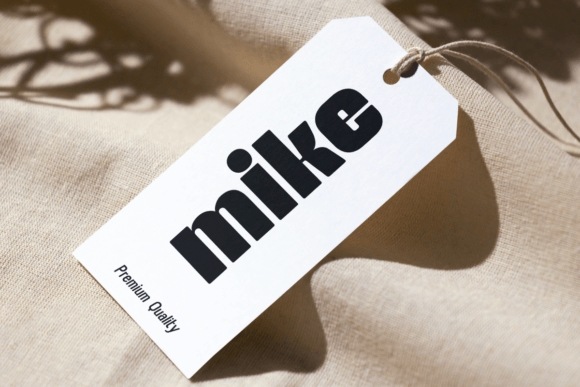
Benz Gacore Font: The Embodiment of Modern Elegance
In the realm of typography, few fonts manage to strike a balance between modern flair and timeless sophistication. Benz Gacore, a sans-serif display font, is one such typographic marvel that has been making waves in the design community. With its robust elegance and striking contemporary style, Benz Gacore is the perfect companion for design projects that seek to make an unforgettable impact.
The Design Philosophy of Benz Gacore
Benz Gacore’s design philosophy revolves around the concept of daring uniqueness. Its proportional letterforms are carefully crafted to breathe a sense of contemporary professionalism into every word, making it easily digestible and aesthetically pleasing for readers. The font’s clean, geometric shapes and surgical precision deliver a sense of simplicity that is both refreshing and impactful.
At the heart of Benz Gacore’s design is a commitment to modernity. Its sans-serif structure ensures that the font remains uncluttered and crisp, making it perfect for titles, logos, and headlines. The font’s geometric shapes are meticulously crafted to create a sense of visual harmony, making it a versatile choice for a wide range of design projects.
The Power of Simplicity
One of the standout features of Benz Gacore is its simplicity. The font’s clean lines and geometric shapes make it a masterclass in typographic design. The Regular style, in particular, delivers bold sophistication through its uncluttered and crisp style, making it perfect for designs that require a sense of gravitas and professionalism.
The Oblique style, on the other hand, introduces vibrancy and momentum through a subtly angled approach. This style adds a sense of dynamism to the font, making it perfect for designs that require a sense of energy and movement. The two variants ensure that Benz Gacore provides the flexibility and dynamism necessary to bring your visionary designs to life.
Key Features of Benz Gacore
- Robust Elegance: Benz Gacore boasts a robust elegance that makes it perfect for designs that require a sense of sophistication and modernity.
- Proportional Letterforms: The font’s proportional letterforms ensure that every word is easily digestible and aesthetically pleasing for readers.
- Clean Geometric Shapes: Benz Gacore’s clean geometric shapes and surgical precision deliver a sense of simplicity that is both refreshing and impactful.
- Two Exclusive Styles: The font comes in two exclusive styles: Regular and Oblique, ensuring that Benz Gacore provides the flexibility and dynamism necessary to bring your visionary designs to life.
Applications of Benz Gacore
Benz Gacore is a versatile font that can be used in a wide range of design projects. Its modern elegance and robust sophistication make it perfect for:
- Logos and Branding: Benz Gacore’s unique style makes it perfect for logos and branding projects that require a sense of modernity and sophistication.
- Headlines and Titles: The font’s clean lines and geometric shapes make it perfect for headlines and titles that require a sense of visual impact.
- Advertising and Marketing: Benz Gacore’s bold sophistication and contemporary style make it perfect for advertising and marketing projects that require a sense of modernity and energy.
Why Choose Benz Gacore?
In a world where typography plays a critical role in design, Benz Gacore stands out as a shining example of modern elegance. Its robust sophistication, proportional letterforms, and clean geometric shapes make it a must-have for design projects that seek to make an unforgettable impact.
Whether you’re a designer, entrepreneur, or marketing professional, Benz Gacore is the perfect choice for anyone looking to elevate their design projects to the next level. With its two exclusive styles, versatility, and modern flair, Benz Gacore is the embodiment of daring uniqueness.
In conclusion, Benz Gacore is a typographic marvel that is sure to make a lasting impression. Its robust elegance, modern flair, and versatility make it a must-have for design projects that seek to make an unforgettable impact. With its two exclusive styles, proportional letterforms, and clean geometric shapes, Benz Gacore is the perfect companion for anyone looking to elevate their design projects to the next level.